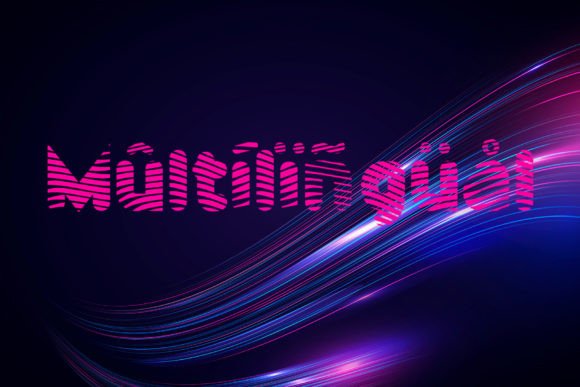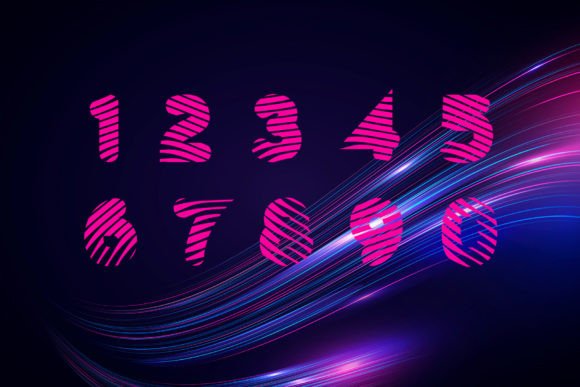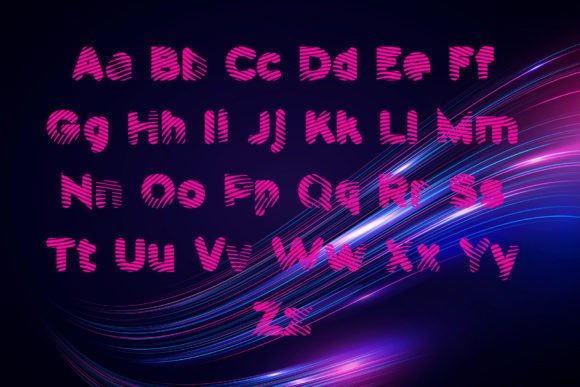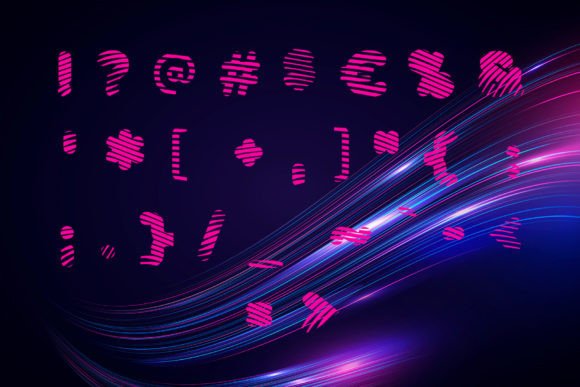
Getting Creative with the Nano Print Font
Have you ever been working on a creative project, pouring your heart and soul into it, only to feel like something’s missing? That’s where the right font can make all the difference. For designers, finding the perfect font can be a game-changer, elevating your work from good to great.
That’s where the Nano Print Font comes in – a cool and modern display font that’s sure to take your designs to the next level. With its sleek lines and versatile style, this font is the perfect design resource for any creative project. Whether you’re working on a logo, brochure, or social media graphic, the Nano Print Font is sure to impress.
Key Features of Nano Print Font
- High-quality design resource with a unique, minimalist aesthetic, perfect for creative projects.
Honest Review: Nano Print Font
As a designer, I’m always on the lookout for high-quality fonts to elevate my creative projects. Recently, I stumbled upon the Nano Print Font, and I’m excited to share my honest review.
What works well: ✨ The font’s sleek and modern design makes it perfect for minimalist-themed projects. The transparent background feature is also a great addition, allowing for seamless integration with other design elements.
Limitations: ⚠️ While the font is overall impressive, I did notice that it may not be suitable for projects requiring a large font size. The design may become too condensed and lose its intended impact.
Overall, I’m thoroughly impressed with the Nano Print Font. Its high-quality design and versatility make it an excellent addition to any designer’s resource library. If you’re looking for a sleek and modern font for your creative project, I highly recommend giving it a try.
Nano Print Font
Nano Print Font is a unique and versatile design resource that offers a high-quality, transparent background, making it perfect for creative projects. To get the most out of this font, follow these steps.
Nano Print Font is perfect for:
Designing invitations, posters, and flyers
Creating digital art and graphics
Adding a unique touch to your social media posts